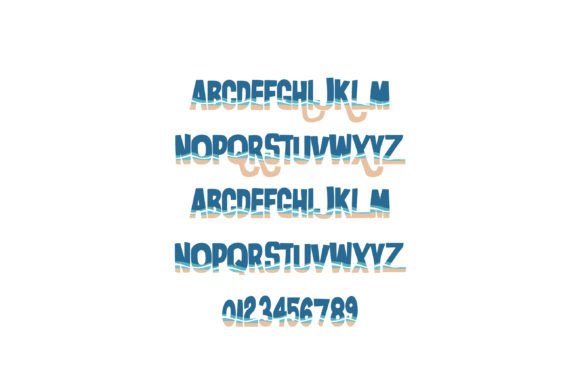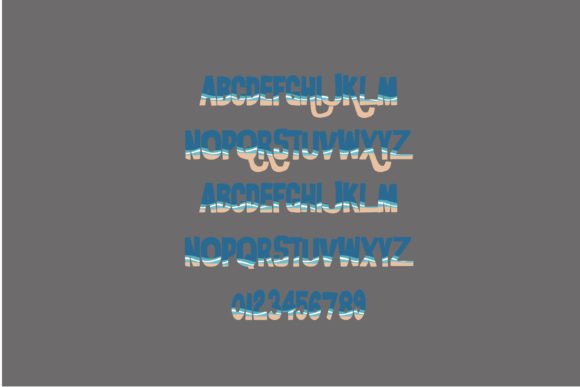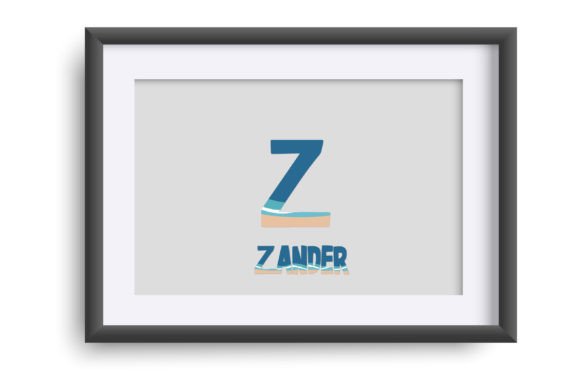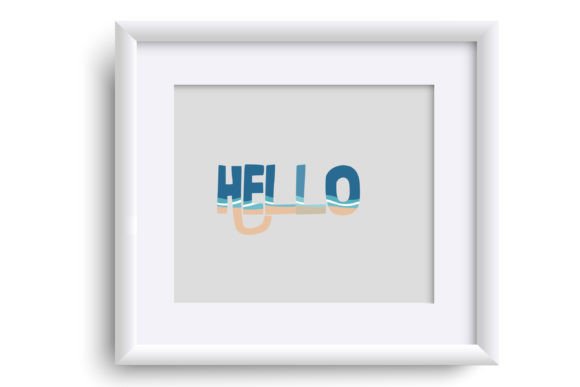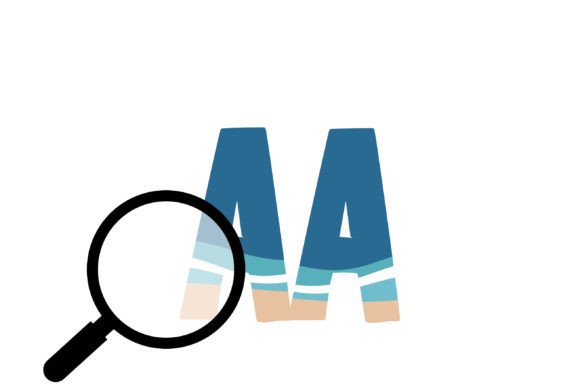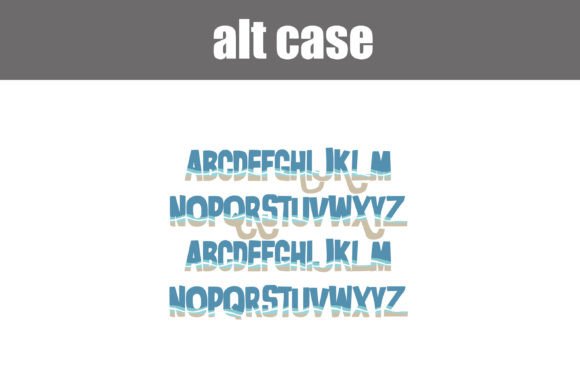
Beachy Keen Font: A Whimsical Sans Serif for Your Coastal Creations
Are you looking for a font that captures the carefree spirit of the beach? Look no further than the Beachy Keen Font, a full-color font that features a whimsical sans serif with a beachy/sandy fill. This font is perfect for designers and crafters who want to add a touch of coastal charm to their titles, displays, posters, and more.
What Makes Beachy Keen Font Special?
The Beachy Keen Font is a unique and versatile font that offers a range of creative possibilities. Here are some of its key features:
- Whimsical sans serif design: The font features a playful, sans serif design that’s perfect for creating eye-catching titles and displays.
- Beachy/sandy fill: The font’s fill is designed to resemble sand, giving it a textured and organic feel.
- Alt case with additional colors: The font comes with an alternative case that offers additional colors, which can be accessed through your system or Silhouette’s glyph map.
Color Font Compatibility
Why Choose Beachy Keen Font?
So why should you choose the Beachy Keen Font for your next project? Here are just a few reasons:
- Unique and eye-catching design: The font’s whimsical design and beachy/sandy fill make it a standout choice for any project.
- Versatile and flexible: The font can be used for a wide range of projects, from titles and displays to posters and more.